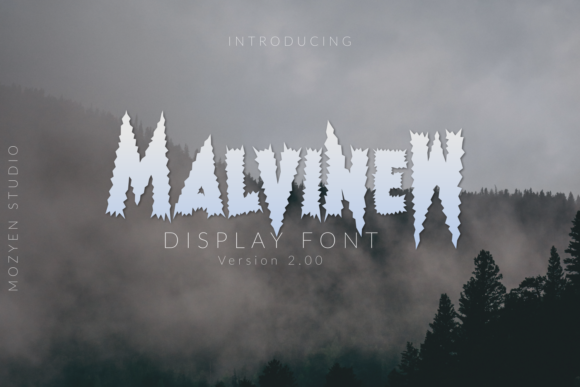
Malvinew 2.00 Font
Malvinew 2.00 Font is perfect for tech startup branding, software interface design, digital agency logos, modern app typography, innovative web headers, cutting-edge marketing campaigns, progressive business presentations, contemporary corporate identity, advanced technology signage, and futuristic promotional materials.
Malvinew 2.00 Font is exciting because it represents the evolution of digital typography through updated letterforms that convey innovation, technological advancement, and next-generation design with contemporary edge. This progressively designed typeface combines version 2.0 improvements with modern functionality, making it perfect for brands that want to communicate technological leadership, continuous innovation, and forward-thinking development that stays ahead of digital trends.
The Malvinew 2.00 Font family includes updated weights with enhanced character styling, featuring improved design elements and advanced technological variations. The font showcases next-generation design details, digitally-optimized proportions, and innovative character characteristics that create a comprehensive typographic system for technology and progressive brand applications.
The technological sophistication of Malvinew 2.00 Font makes it an invaluable tool for software companies, digital agencies, and tech-focused service providers that need typography capable of communicating innovation and technological excellence. The font's advanced character helps establish immediate associations with cutting-edge technology, continuous development, and digital leadership that appeal to tech-savvy audiences seeking progressive solutions.
Software developers, digital marketing agencies, and technology startups consistently choose Malvinew 2.00 Font for its ability to convey technological advancement and digital sophistication through typography. The font excels in applications where establishing tech credibility and innovative positioning are essential to brand positioning, making it particularly effective for software services, digital solutions, and technology brands targeting forward-thinking consumers.
This font's comprehensive character set includes technologically-styled letterforms, digital numerals, advanced punctuation marks, and innovation symbols that support authentic technology typography composition. The consistent progressive styling maintains the technological advancement theme throughout all characters while ensuring professional readability across all digital and technology design projects requiring Malvinew 2.00 Font Free Download functionality.